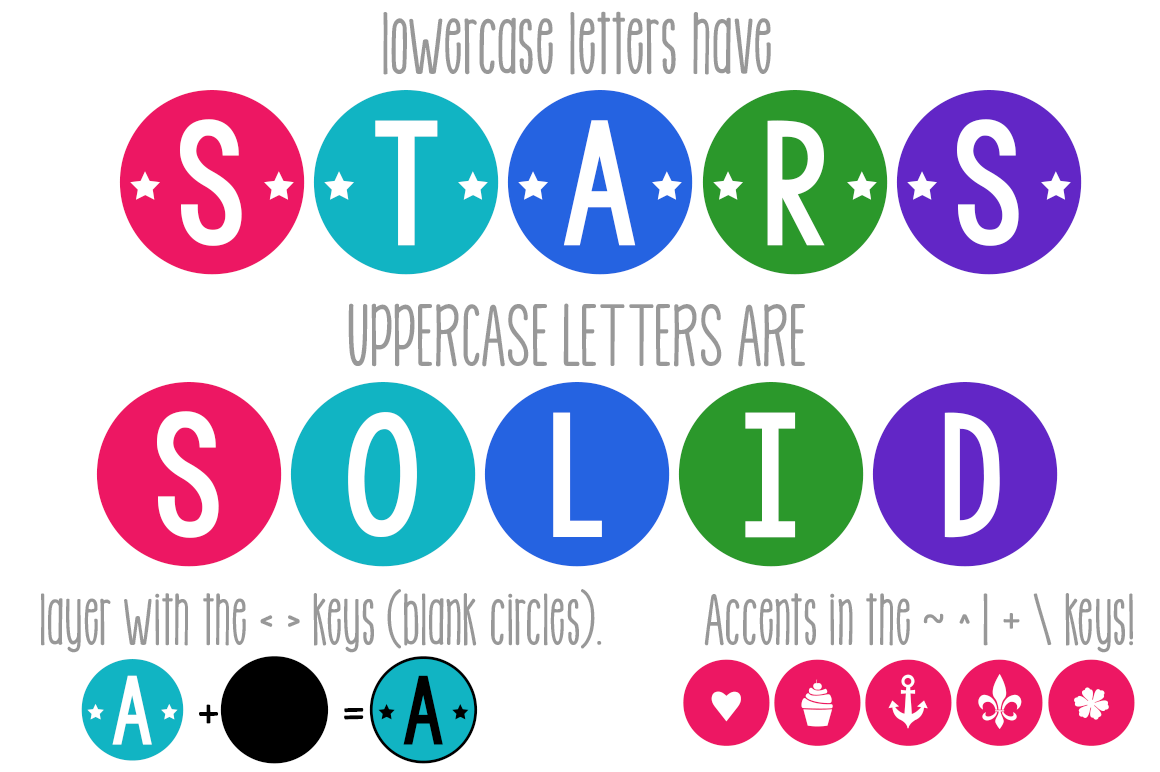
KG Counting Stars Font
This whimsical font offers 2 options- use the lowercase letters for star-accented letters or use the uppercase letters for solid circles.